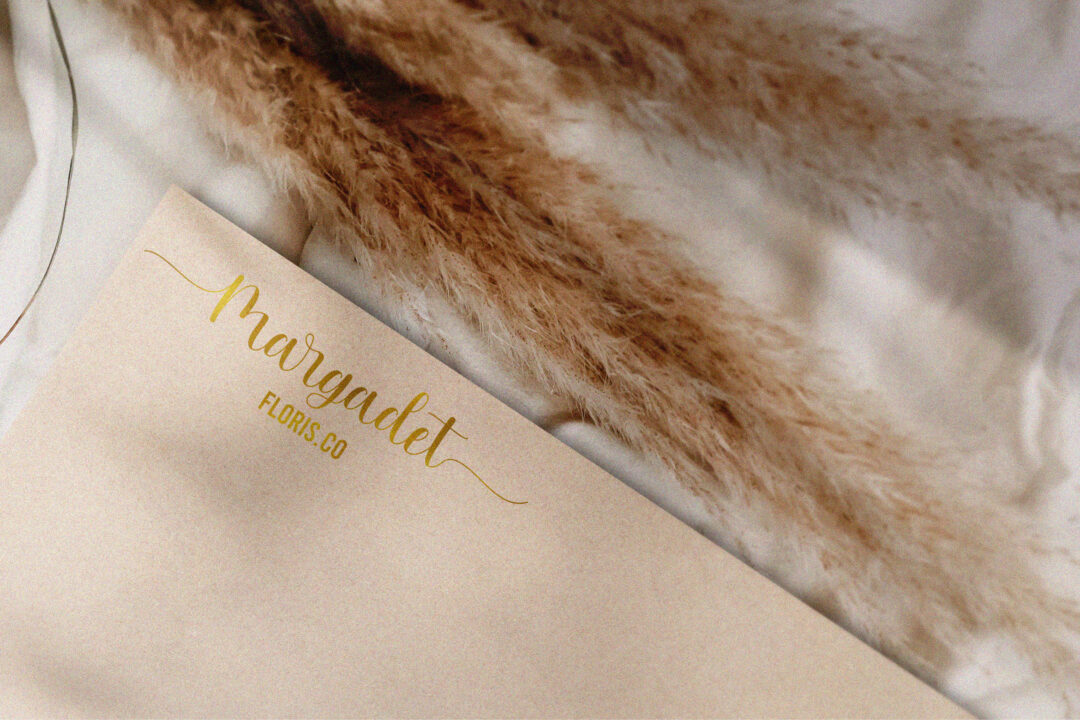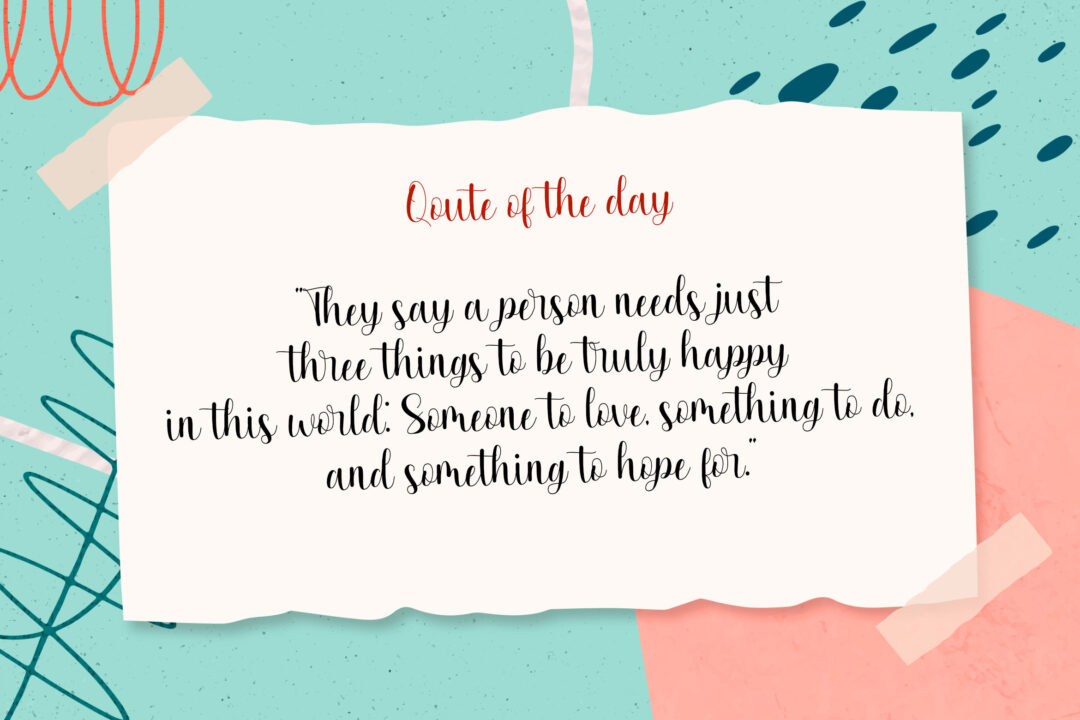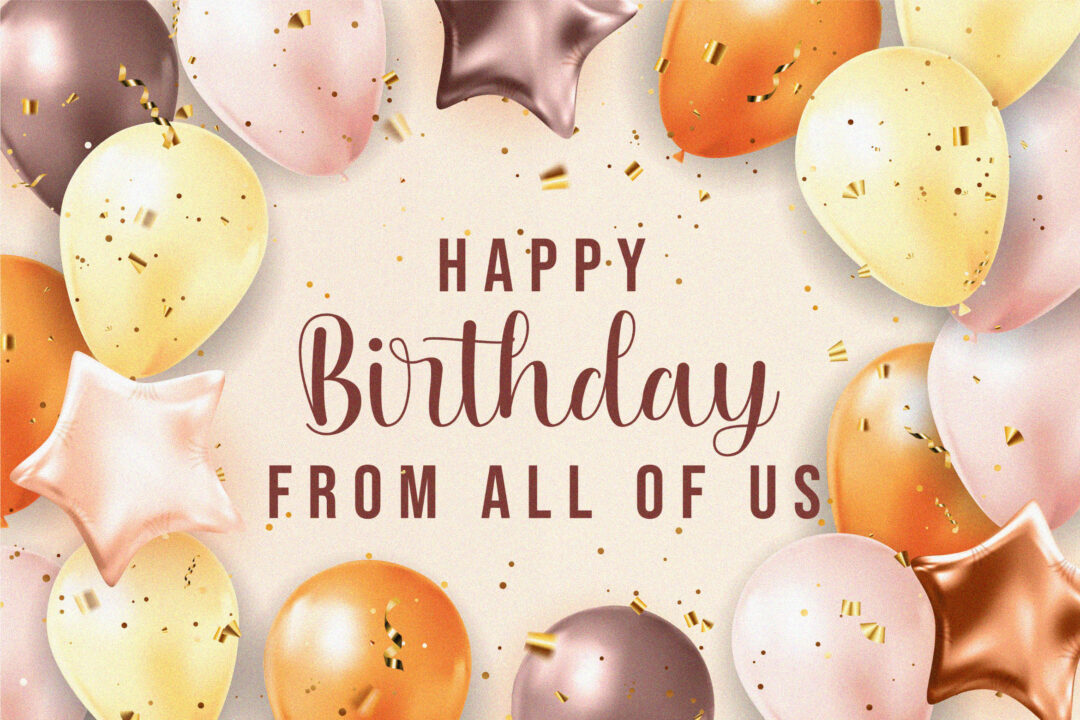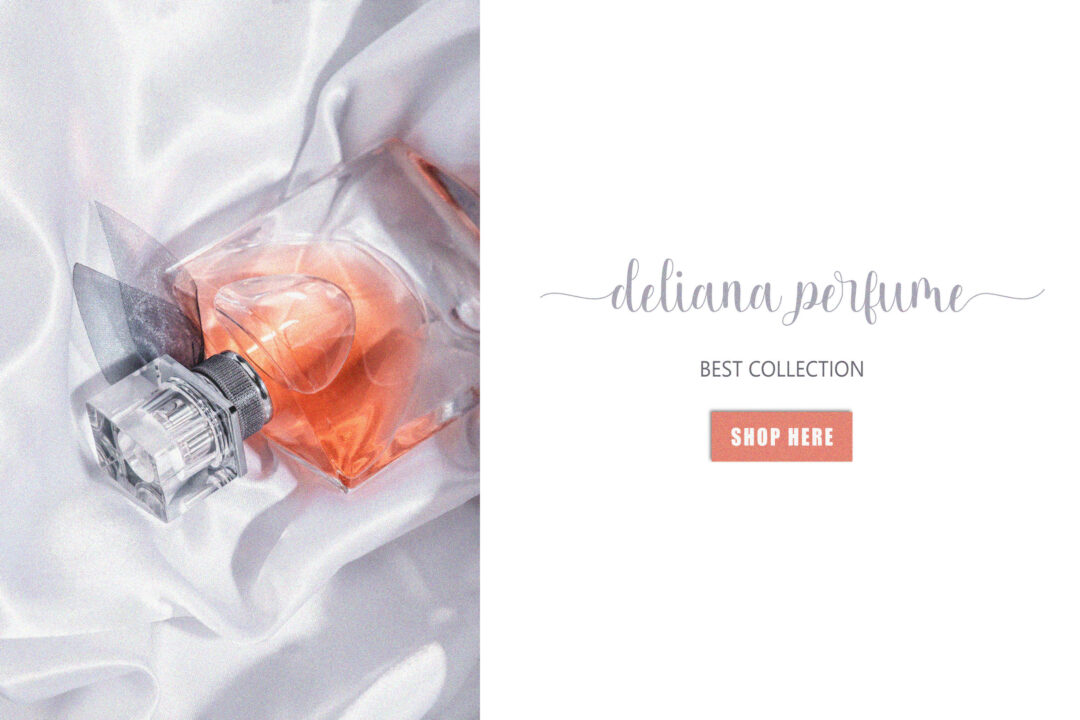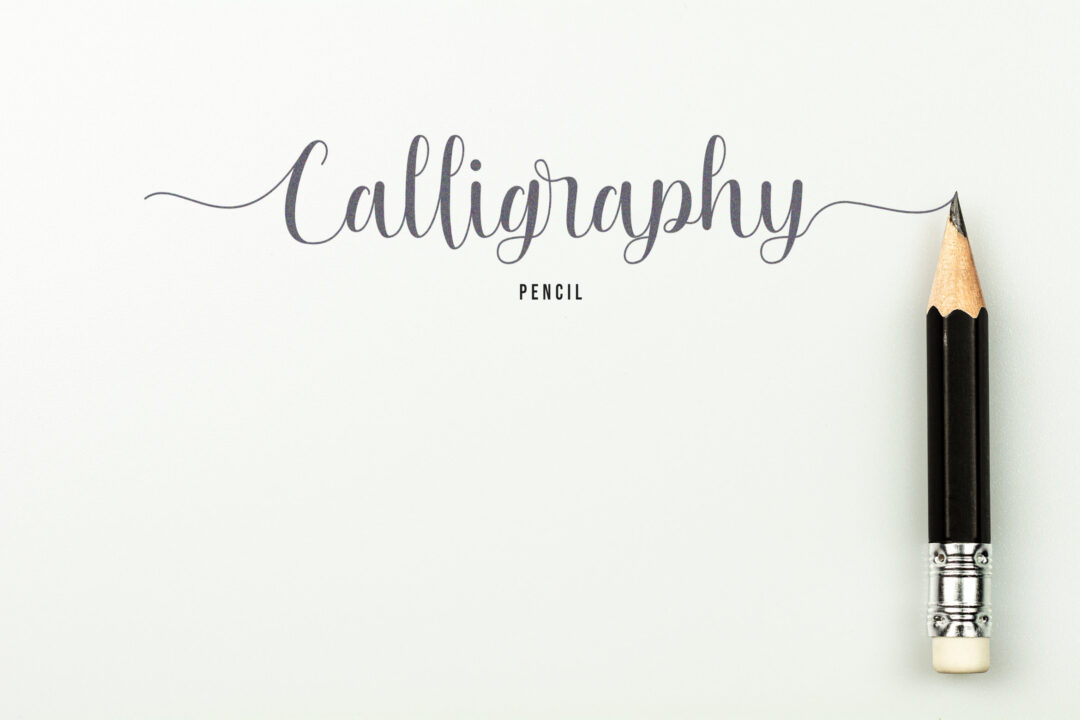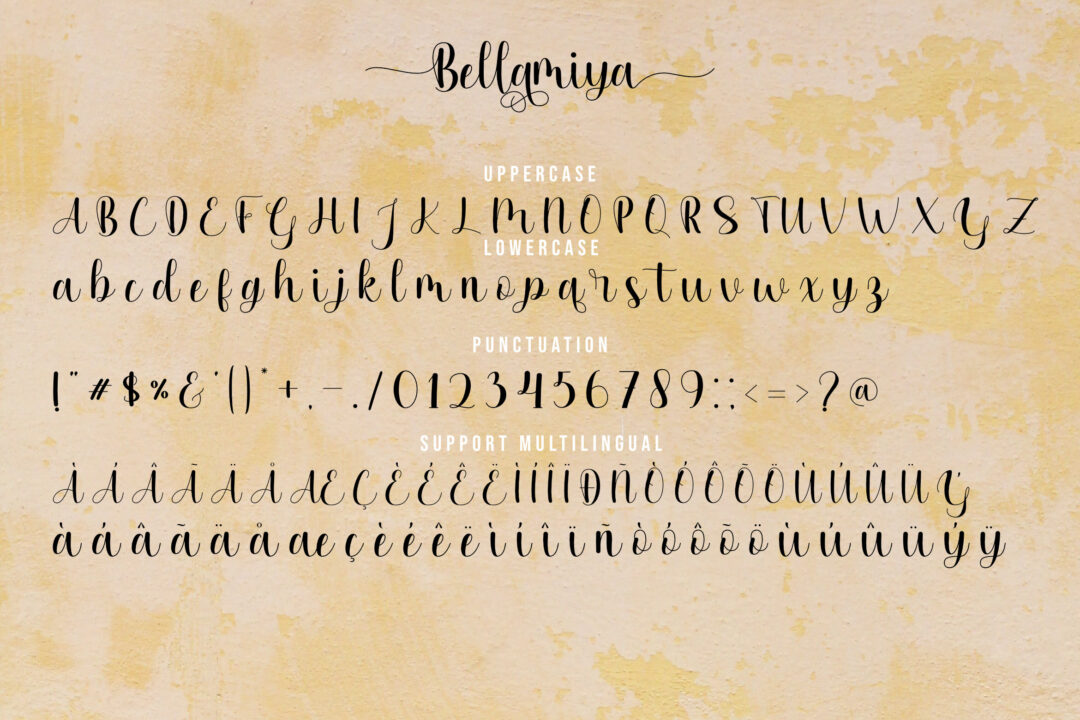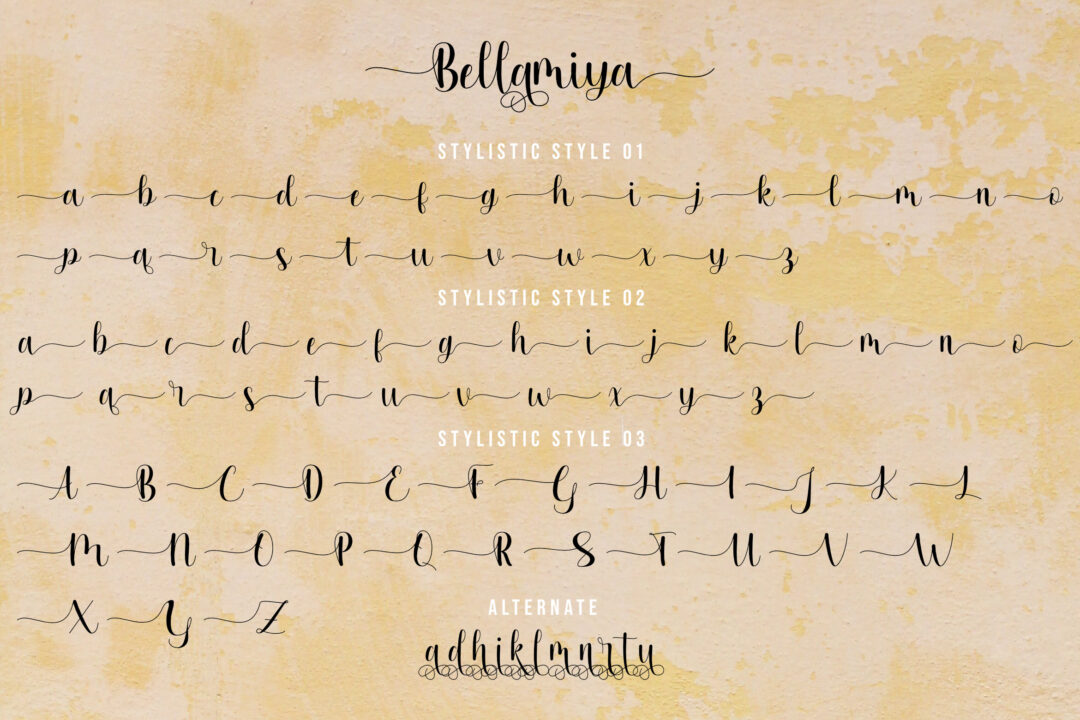
Harmony Calligraphy Font is a captivating and harmonious typeface that exudes elegance and grace. Inspired by traditional calligraphy, this font combines flowing curves, intricate details, and balanced proportions to create a truly harmonious visual experience.
The letters of Harmony Calligraphy Font are meticulously crafted with artistic precision, showcasing the beauty of hand-drawn lettering. Each stroke seamlessly flows into the next, creating a sense of rhythm and fluidity. The delicate curves and graceful swashes give the font a sense of movement, evoking a feeling of grace and sophistication.
Harmony